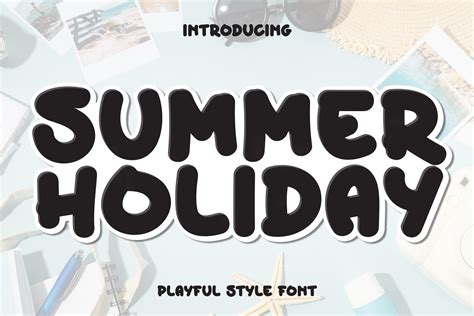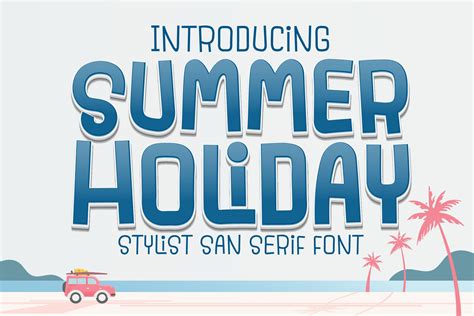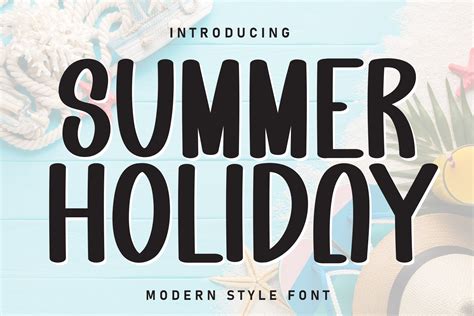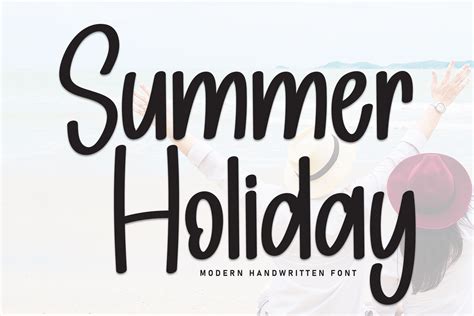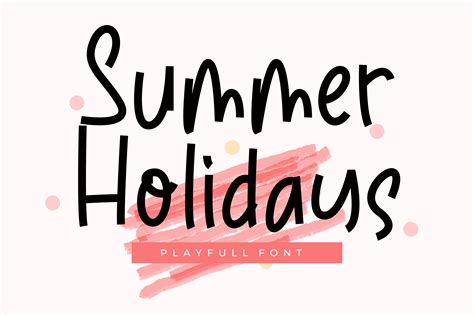
Summer is a time of joy, relaxation, and adventure. It's the season when people of all ages look forward to taking a break from their daily routines and enjoying some well-deserved time off. One of the most exciting aspects of summer is the opportunity to create memorable experiences, and what better way to capture the spirit of the season than with a Summer Holiday Font? Whether you're planning a vacation, hosting a summer party, or simply want to add a touch of summer vibes to your projects, choosing the right font can make all the difference.
Why Choose a Summer Holiday Font?
A Summer Holiday Font is more than just a typeface; it's a way to evoke the feelings and atmosphere of summer. These fonts often feature playful, vibrant, and carefree designs that instantly transport you to a sunny beach or a lively outdoor festival. Here are some reasons why you might want to consider using a Summer Holiday Font for your summer projects:
- Evokes Summer Vibes: Summer fonts are designed to capture the essence of the season, with bright colors, playful shapes, and a sense of freedom.
- Versatile Use: Whether you're creating invitations, posters, or digital content, a Summer Holiday Font can add a festive touch to any project.
- Enhances Creativity: Using a unique and eye-catching font can inspire creativity and make your designs stand out.
Types of Summer Holiday Fonts
There are various types of Summer Holiday Fonts to choose from, each with its own unique characteristics. Here are some popular categories:
- Handwritten Fonts: These fonts mimic the look of handwriting and add a personal, casual touch to your designs.
- Script Fonts: Elegant and flowing, script fonts are perfect for invitations and special occasions.
- Bold and Playful Fonts: These fonts feature bright colors and bold shapes, ideal for capturing the energetic spirit of summer.
- Retro Fonts: Inspired by vintage designs, retro fonts can add a nostalgic feel to your summer projects.
How to Choose the Perfect Summer Holiday Font
Selecting the right Summer Holiday Font depends on the specific needs of your project. Here are some tips to help you make the best choice:
- Consider the Theme: Think about the overall theme of your project. For example, if you're planning a beach party, a font with a nautical or tropical theme might be ideal.
- Match the Tone: Ensure the font aligns with the tone of your project. A playful font might be perfect for a children's summer camp, while a more elegant script font could be suitable for a formal summer event.
- Readability: While aesthetics are important, make sure the font is easy to read, especially if you're using it for text-heavy content.
Here is a table to help you compare different types of Summer Holiday Fonts and their best uses:
| Font Type | Characteristics | Best Uses |
| Handwritten | Casual, personal, varied styles | Invitations, personal notes, casual events |
| Script | Elegant, flowing, formal | Weddings, formal invitations, special occasions |
| Bold and Playful | Bright colors, bold shapes, energetic | Posters, flyers, children's events |
| Retro | Vintage, nostalgic, classic | Vintage-themed parties, retro designs, nostalgic projects |
Incorporating Summer Holiday Fonts into Your Projects
Once you've chosen the perfect Summer Holiday Font, it's time to incorporate it into your projects. Here are some ideas to get you started:
- Invitations: Use a Summer Holiday Font to create eye-catching invitations for summer parties, weddings, or other events.
- Posters and Flyers: Design vibrant posters and flyers for summer festivals, concerts, or community events.
- Digital Content: Enhance your blog posts, social media graphics, and email newsletters with summer-themed fonts.
- Greeting Cards: Add a personal touch to your greeting cards with a playful or elegant Summer Holiday Font.
💡 Note: When using a Summer Holiday Font, make sure to test it in different sizes and formats to ensure it remains legible and visually appealing.
Popular Summer Holiday Fonts
There are countless Summer Holiday Fonts available, each with its own unique style. Here are some popular options that you might consider:
- Pacifico: A playful, handwritten font that evokes a sense of fun and creativity.
- Lobster: An elegant script font with a vintage feel, perfect for formal invitations.
- Bebas Neue: A bold, modern font with clean lines and a strong presence.
- Great Vibes: A stylish script font that adds a touch of elegance to any project.
These fonts are just a starting point. Explore different options to find the one that best fits your project's needs and personal style.
Here is an image of a summer holiday font in use:
Designing with Summer Holiday Fonts
When designing with Summer Holiday Fonts, there are a few key considerations to keep in mind:
- Color Scheme: Choose colors that complement the font and enhance the summer theme. Bright, vibrant colors are often a good choice.
- Background: Select a background that contrasts well with the font to ensure readability. Light backgrounds work well with dark fonts, and vice versa.
- Layout: Arrange your text in a way that is visually appealing and easy to read. Use white space effectively to avoid clutter.
By paying attention to these details, you can create designs that are both visually stunning and functional.
💡 Note: Always preview your design on different devices and screen sizes to ensure it looks good everywhere.
In wrapping up, using a Summer Holiday Font can transform your summer projects into vibrant, memorable experiences. Whether you’re planning a party, creating invitations, or designing digital content, the right font can make all the difference. By choosing a font that captures the spirit of summer and incorporating it thoughtfully into your designs, you can create something truly special.